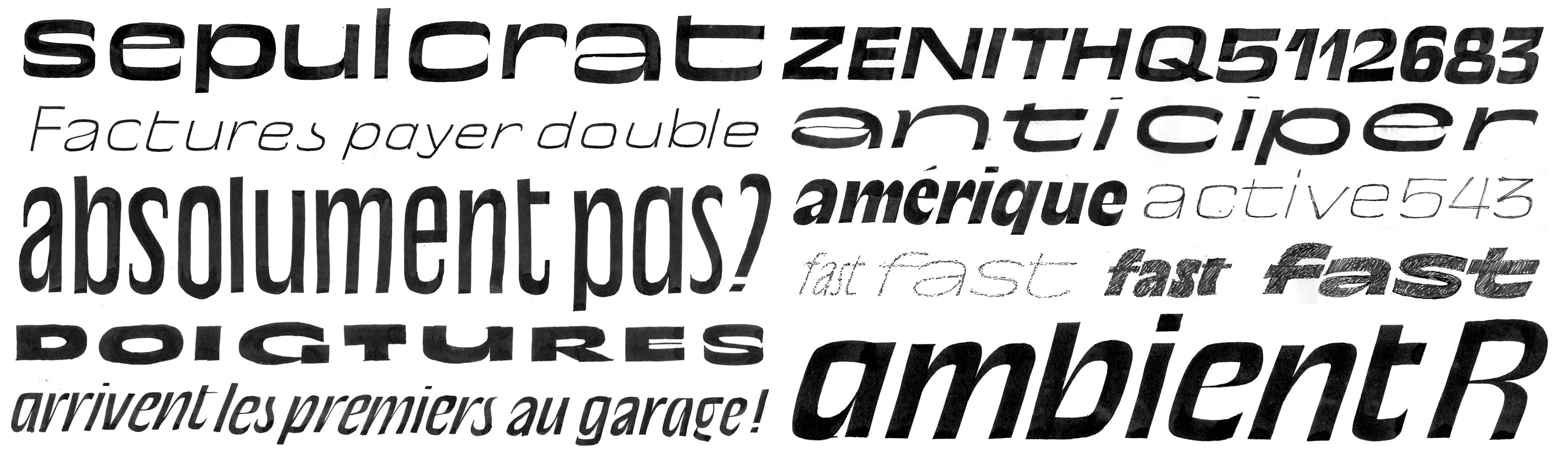
About Trois Mille
Trois Mille introduced a high contrast methodology that pushed the limits of the broad nib calligraphy pen into striking new territory. The result of Marc Rouault’s progressive design was first introduced to the world as his TypeMedia thesis project in 2016. In a field where innovation tends to happen slowly, Trois Mille’s dynamic, expansive, and distinctly French character moved the needle of aesthetic culture rapidly. Initially inspired by the great modern master Roger Excoffon, Marc’s novel construction methodology was further explored via an extreme exploration in weight and width. Five years after its introduction, Trois Mille has grown into a masterfully executed family, spanning 7 weights in 21 widths of roman and italic styles.
Construction
7 weights, 21 widths, 294 total fonts.
Trois Mille began at the drawing board as a test to produce low contrast styles with a high contrast tool. Marc experimented with calligraphy, leading him to a breakthrough: by always orienting the pen at either 0° for horizontal strokes or 90° for verticals, he created a system where hairlines only occur at the stroke intersections and some interior strokes and joins, while the rest remain thick.
By utilizing nib-rotation to create monolinear outer strokes and only using the hairline value for stroke joins and some interior strokes and cross-bars, Rouault’s ideation laid the groundwork for a system of contrast methodology we call internal contrast. While some wood-type models and colloquial lettering of the past contain the building blocks of this style, Roualt's calligraphic model served as a vital first step in codifying these disparate construction ideas into a coherent methodology. The spark of this exciting visual style finds its most concentrated expression in the Black weights of Trois Mille. As the Trois Mille weight spectrum goes from Regular to Black, this 90° rotational stroke modulation changes from including horizontal strokes throughout the letterforms to excluding centralized horizontal strokes in the Black weight.
Quintessential American Grotesks of the wood type era pioneered this technique of thin inner strokes to keep a uniform weight in the heavy outer strokes, Trois Mille formalized this method by applying it to characters like ‘E’ and ‘S’. In the darkest weights, a hierarchy of horizontal contrast values balances characters with multiple thick horizontal strokes that could have otherwise looked too dense.
Echoes of Roger Excoffon’s signature style are found throughout the family. For Marc, Excoffon’s typefaces feel classic, but they possess a charmingly off-kilter and contemporary sensibility for the 20th century. The design of Excoffon’s masterpiece, Antique Olive, was guided by the results of a clinical study of the reading process conducted in the 1950s, which concluded that the top of the bouma (word shape) is the most integral to how the human eye processes Latin text into language. This informed Antique Olive’s distinct top-heavy style.
Trois Mille claims its space. It was designed to take up as much surface area as possible with measured restraint. Short ascenders and descenders and tucked tails create an ultra-compact texture that commands attention. Text and headlines are remain legible whether they are set in condensed or expanded widths.
In true Sharp Type fashion, Trois Mille is built out to an expansive range of numerically itemized widths, including 21 widths and 7 weights in roman and italic, for a total of 294 fonts. The family is fast, and full of energy. Trois Mille is a modern classic that fuses visual panache and sober legibility across the breadth of its massive weight system.